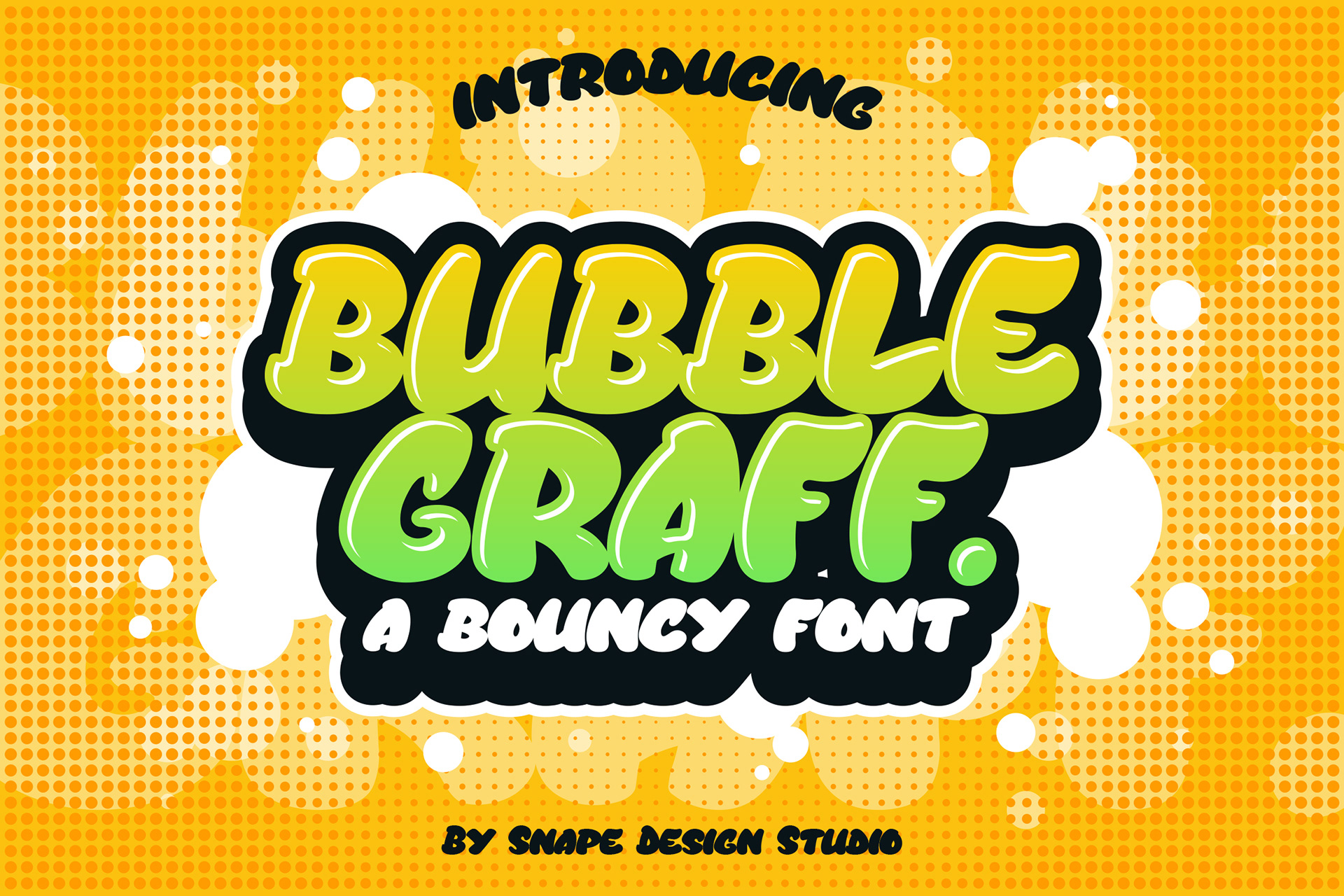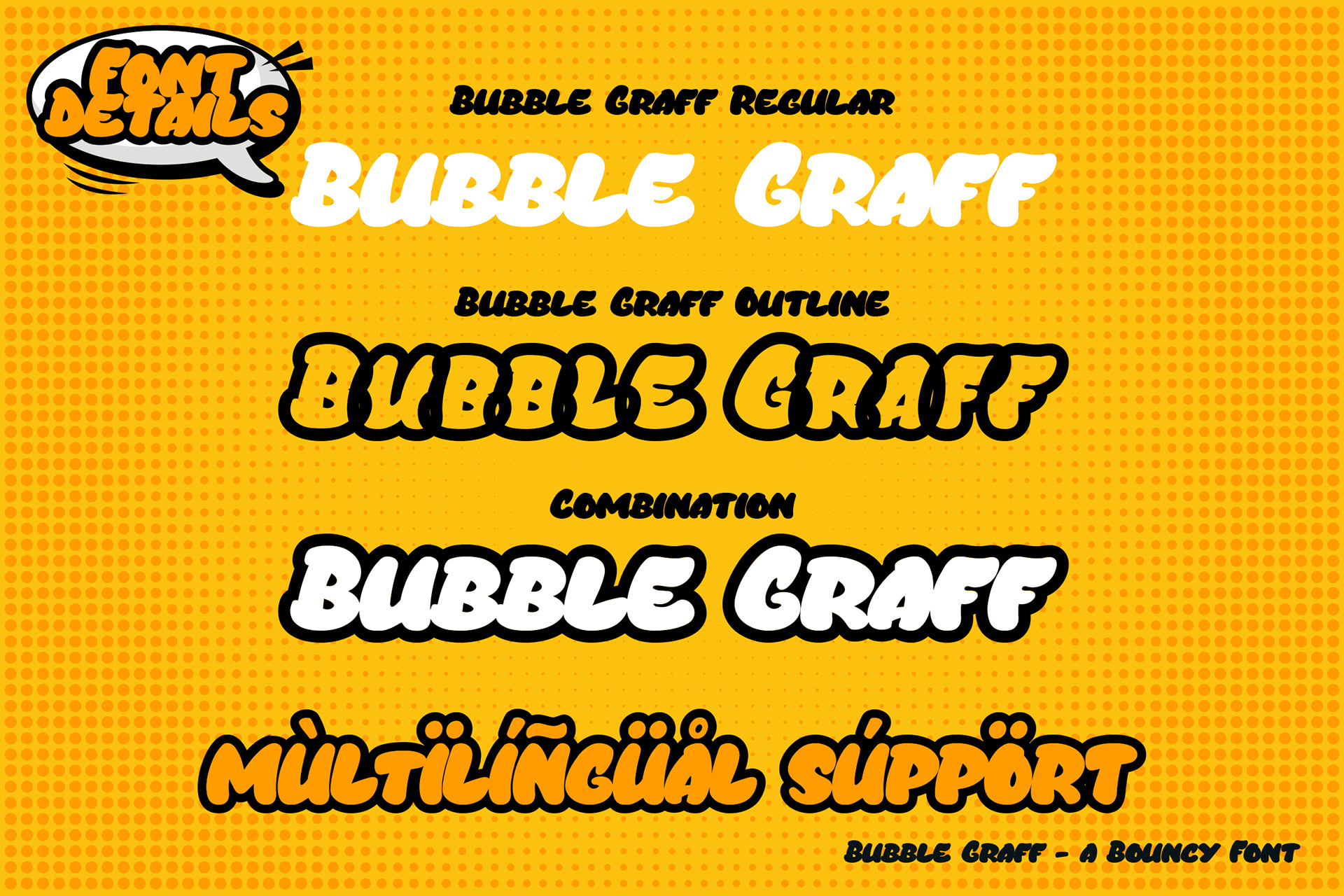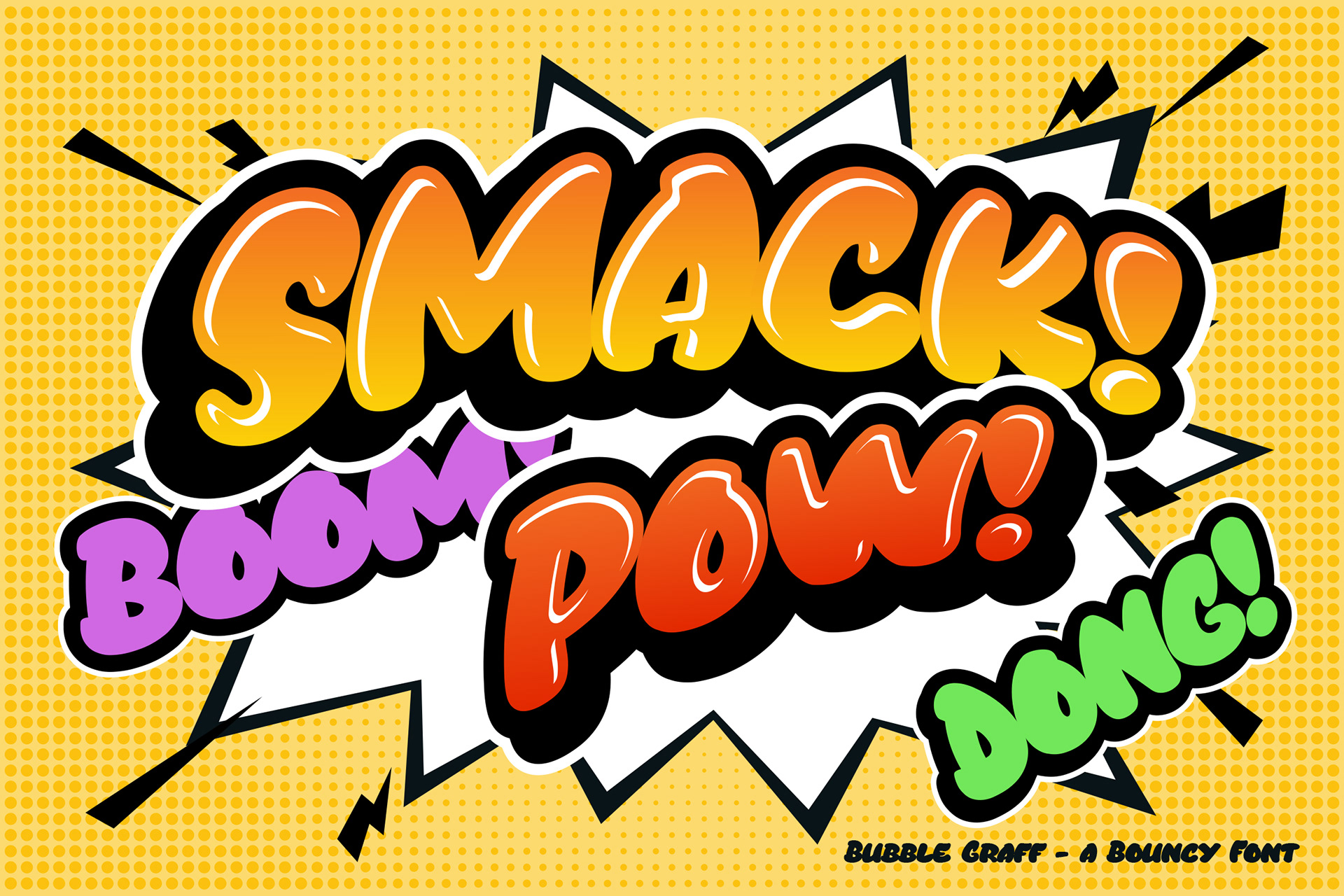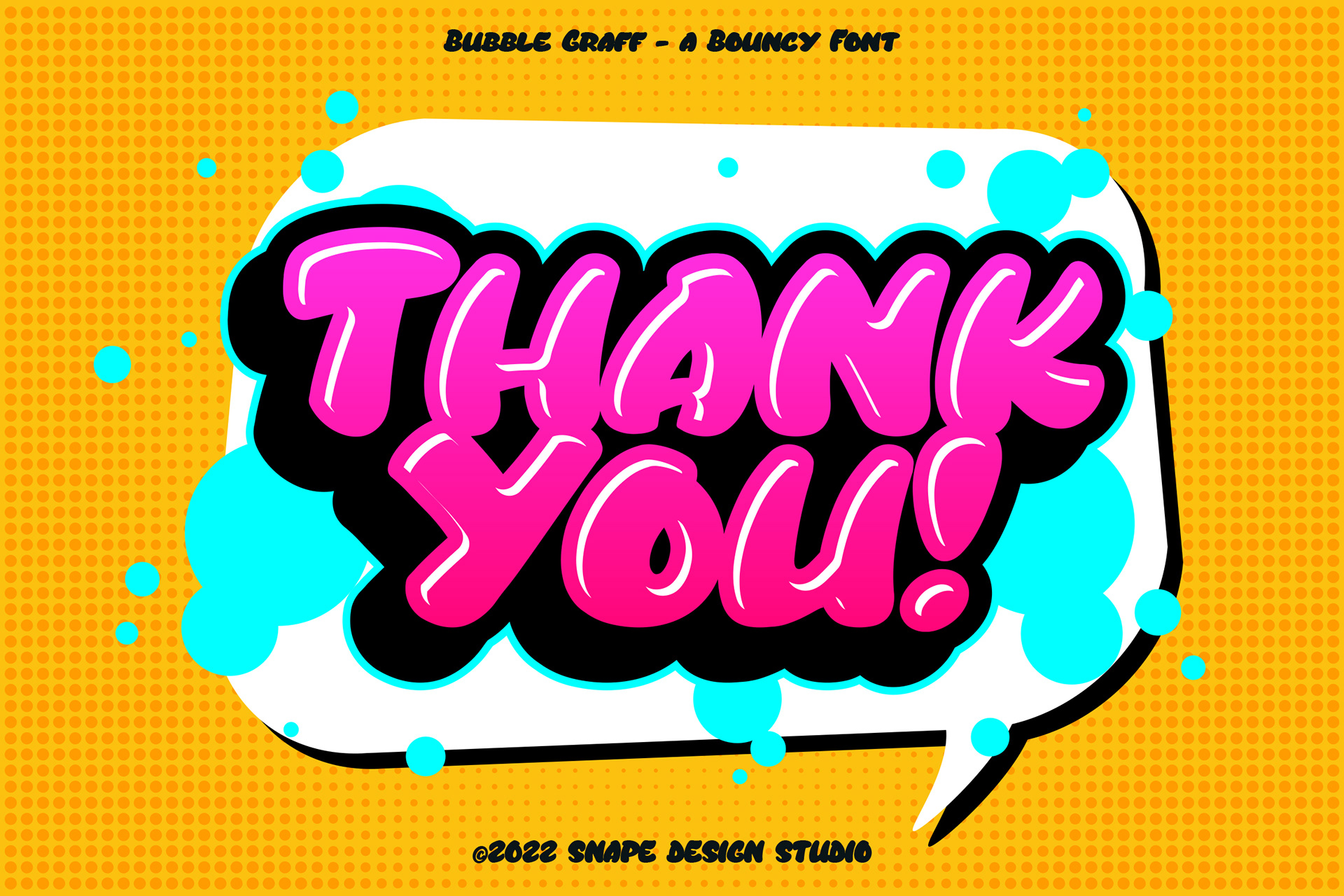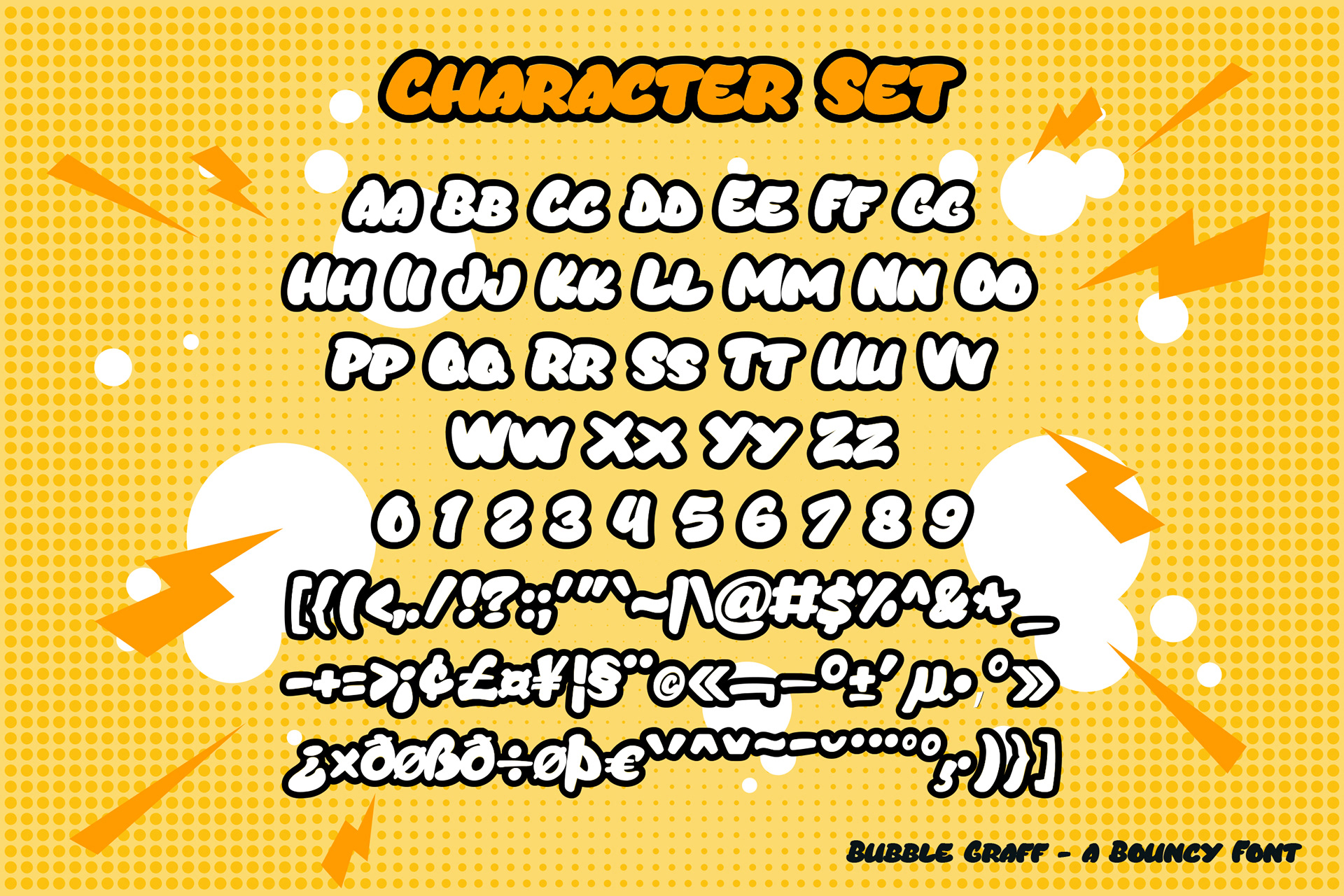
Bubble Graff is a cool, bubbly, and thick-lettered display font. It embodies playfulness and authenticity and is the perfect choice for any children’s activity or school project, especially when combined with bright colors. Add this font to your creative ideas and notice how it will make them stand out!